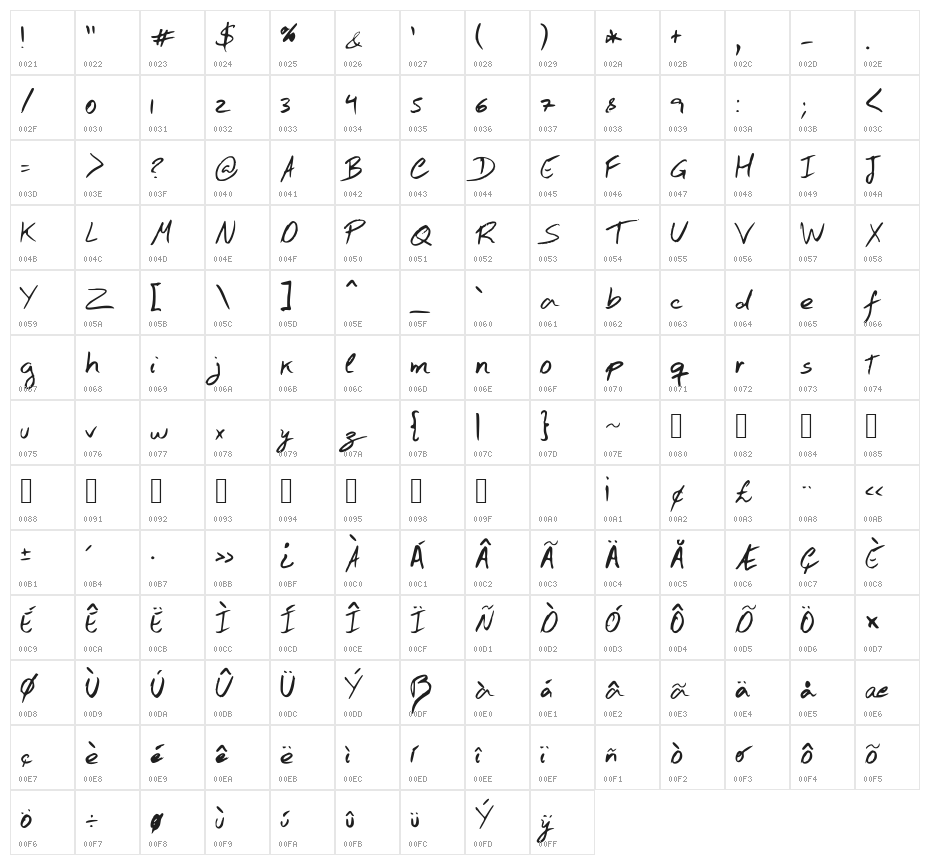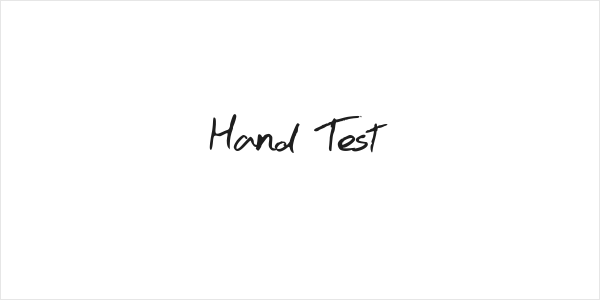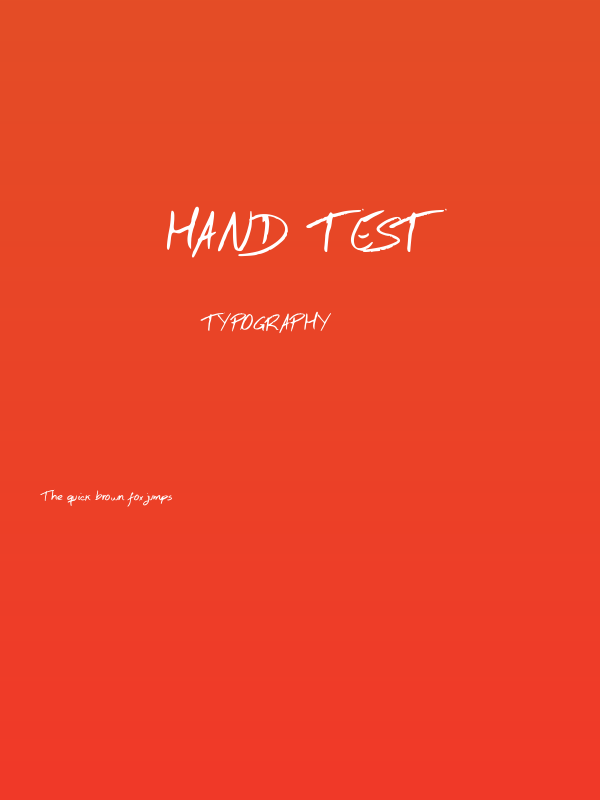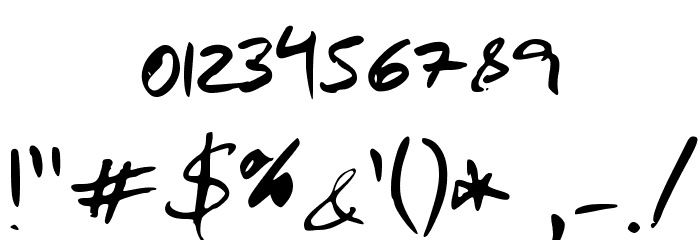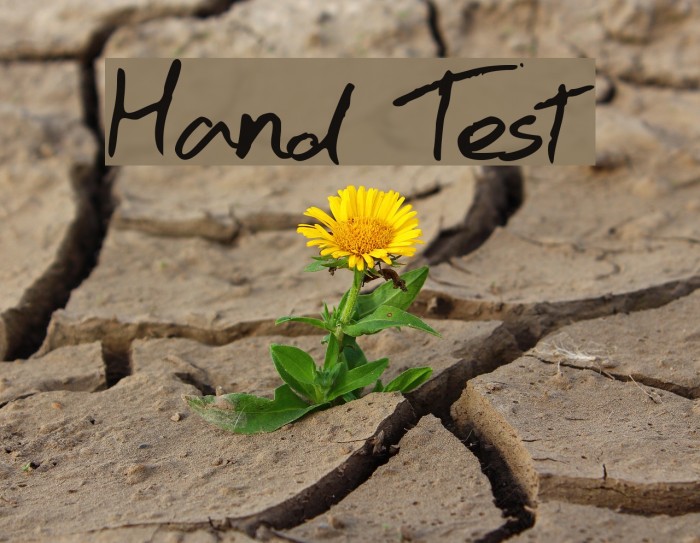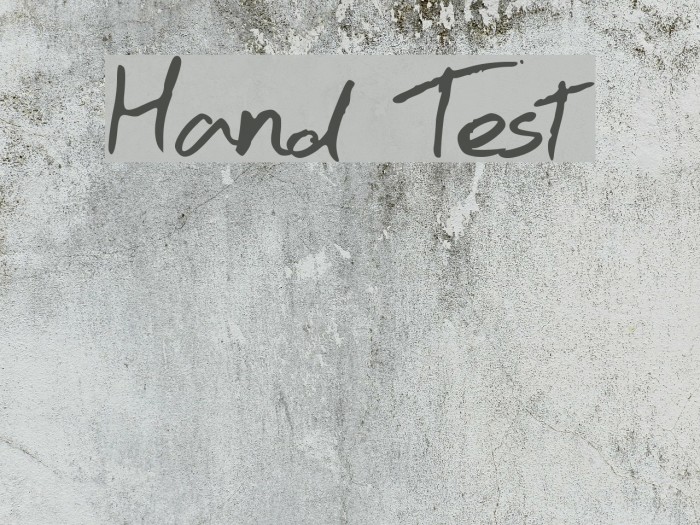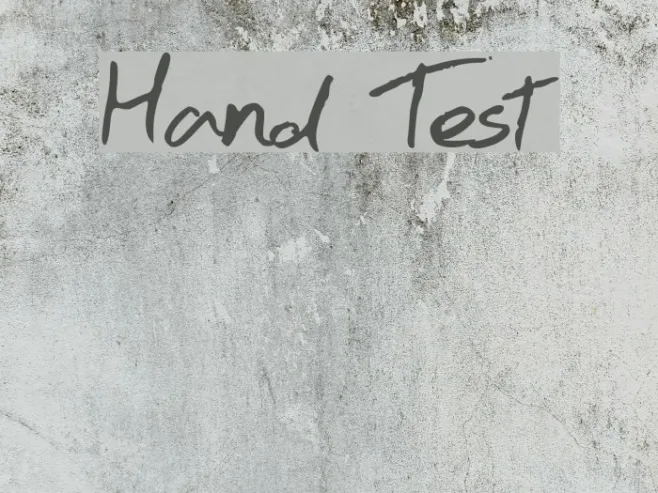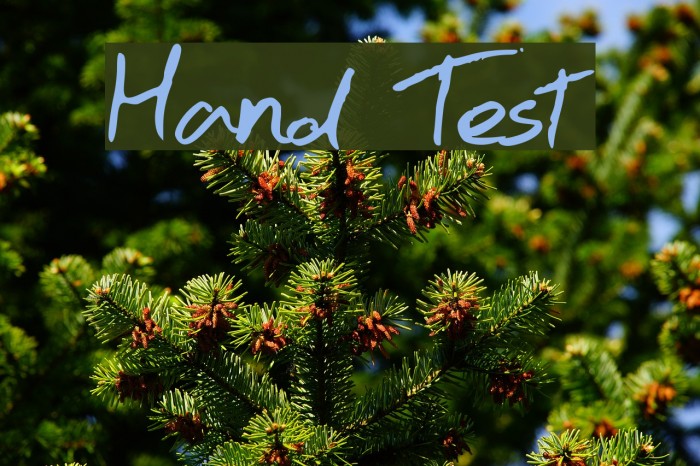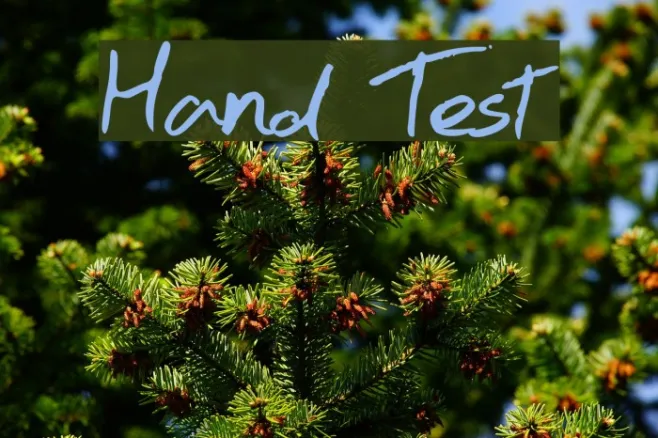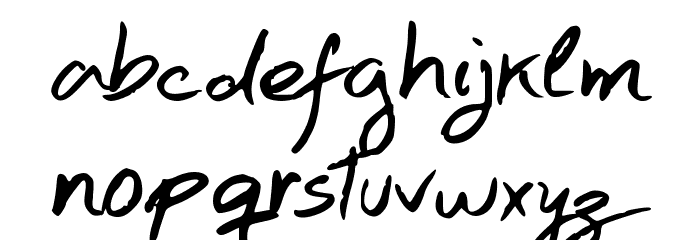
Hand Test Font
Hand Test Description
This font features a dynamic and expressive handwritten style, characterized by its fluid and slightly irregular strokes. The uppercase letters are bold and confident, while the lowercase letters maintain a consistent flow, adding a personal touch to the text. Numbers and special characters are crafted with the same energetic flair, making them stand out. The overall appearance is casual yet sophisticated, ideal for projects that require a human touch. Its unique style captures attention and conveys a sense of creativity and individuality.
| Overall Style | Casual, Creative |
| Use Case | Logos, Invitations, Artistic Designs |
| Proposed Projects | Ideal for personal branding, creative projects, invitations, and artistic designs. |